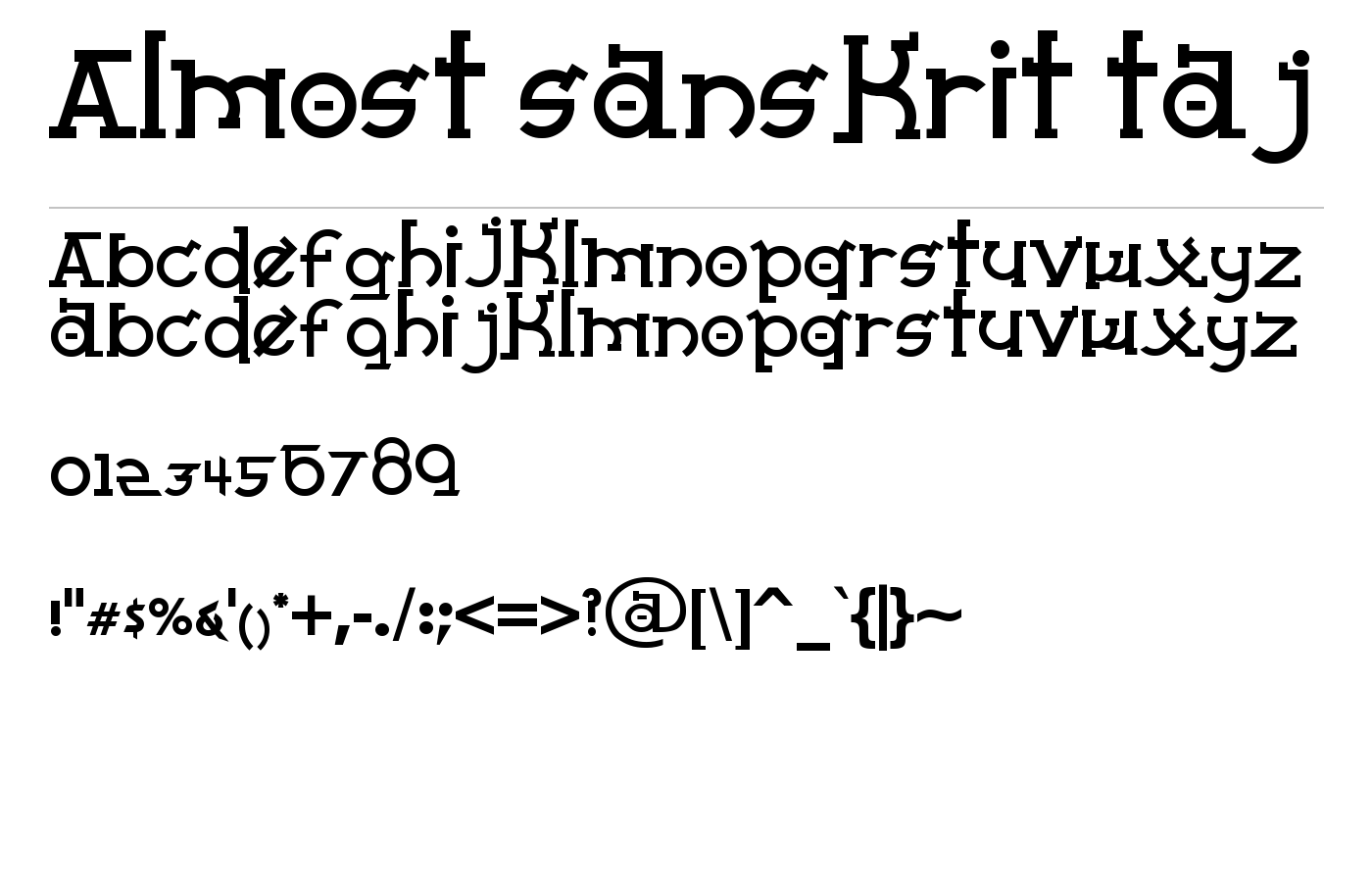
Almost Sanskrit Taj New is a distinctive serif font that blends traditional and modern elements with its unique angular serifs and geometric shapes. Its medium weight and normal width paired with unusual letterforms give it a quirky yet sophisticated personality, making it ideal for creative headlines, logos, and display uses where a bold, artistic impression is desired. This font works well for brands seeking an innovative, slightly avant-garde feel while maintaining readability.
Almost Sanskrit Taj New Font
About Almost Sanskrit Taj New Font